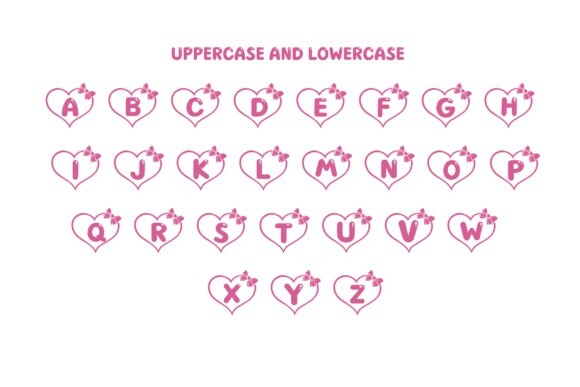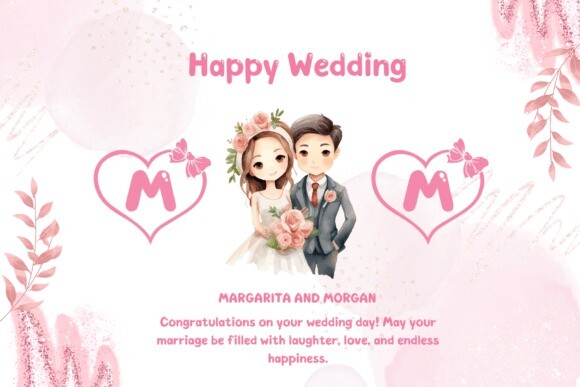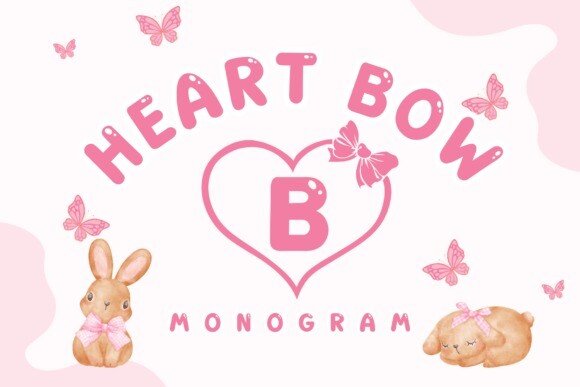
Heart Bow Monogram Font
Heart bow Monogram Font. This monogram font is ideal for crafting, branding, and decorating any project. It is a sweet decorative font, featuring a lovely bow ornament. Fall in love with its authentic feel and use it to create gorgeous wedding invitations, beautiful stationary art, eye-catching social media posts, and cute greeting cards. Also with their help, you can create a logo or beautiful frame for your home.